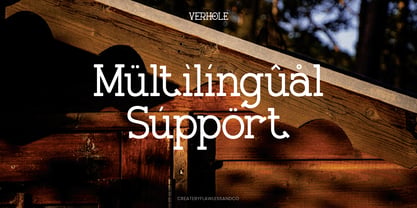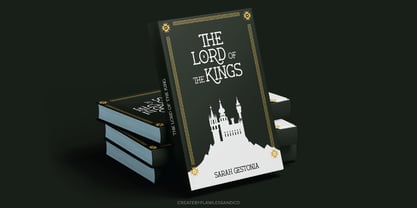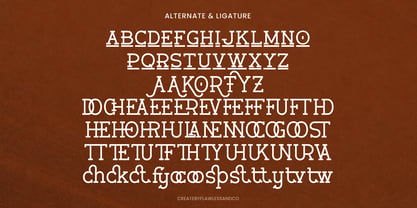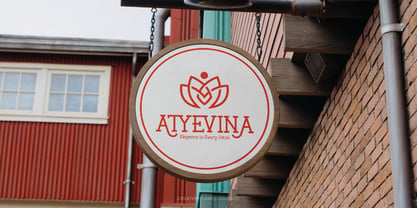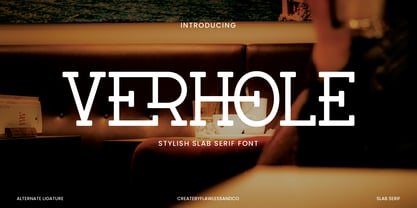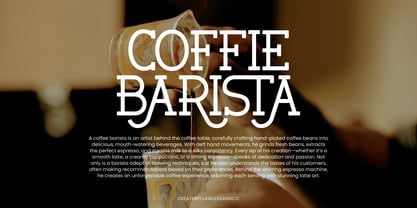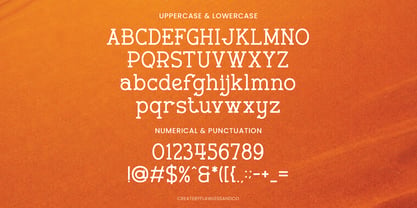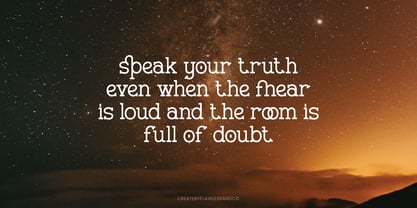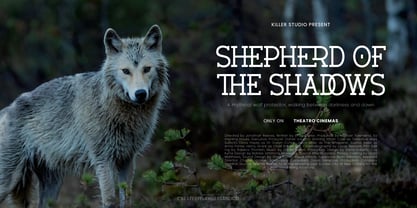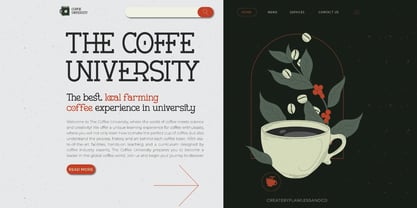
Verhole
The Verhole Font Family was designed by Achmad Yani and published by Flawlessandco. Verhole contains 1 styles. More about this family
Verhole is a stylish slab serif font with a modern twist on vintage design. Featuring bold letterforms, elegant ligatures, and unique horizontal cuts, Verhole blends classic charm with contemporary flair. Its strong presence and versatile character make it ideal for branding, editorial titles, book covers, coffee-themed visuals, and creative display use. Whether you're aiming for a retro-inspired look or a sophisticated visual identity, Verhole delivers with distinction.
Features :
Multilingual, Uppercase alphabet A-Z, Lowercase alphabet a-z, Numbers 0-9, Some punctuation, Alternates & Ligatures